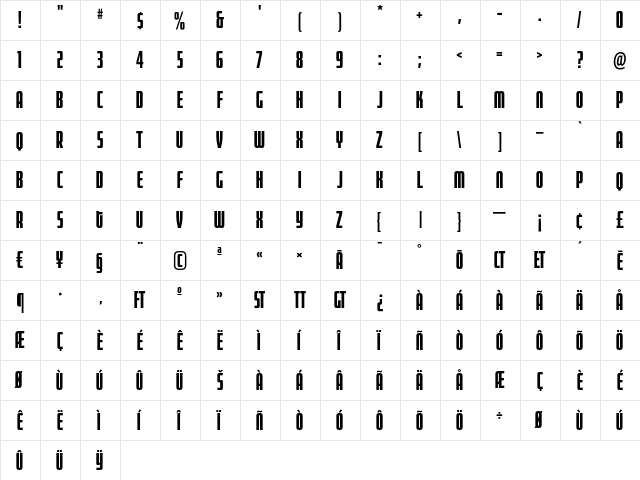
MorganTw3 Regular
Design Context for MorganTw3 Typeface
MorganTw3 is a composed and adaptable typeface that performs quietly and consistently across a wide range of design contexts.